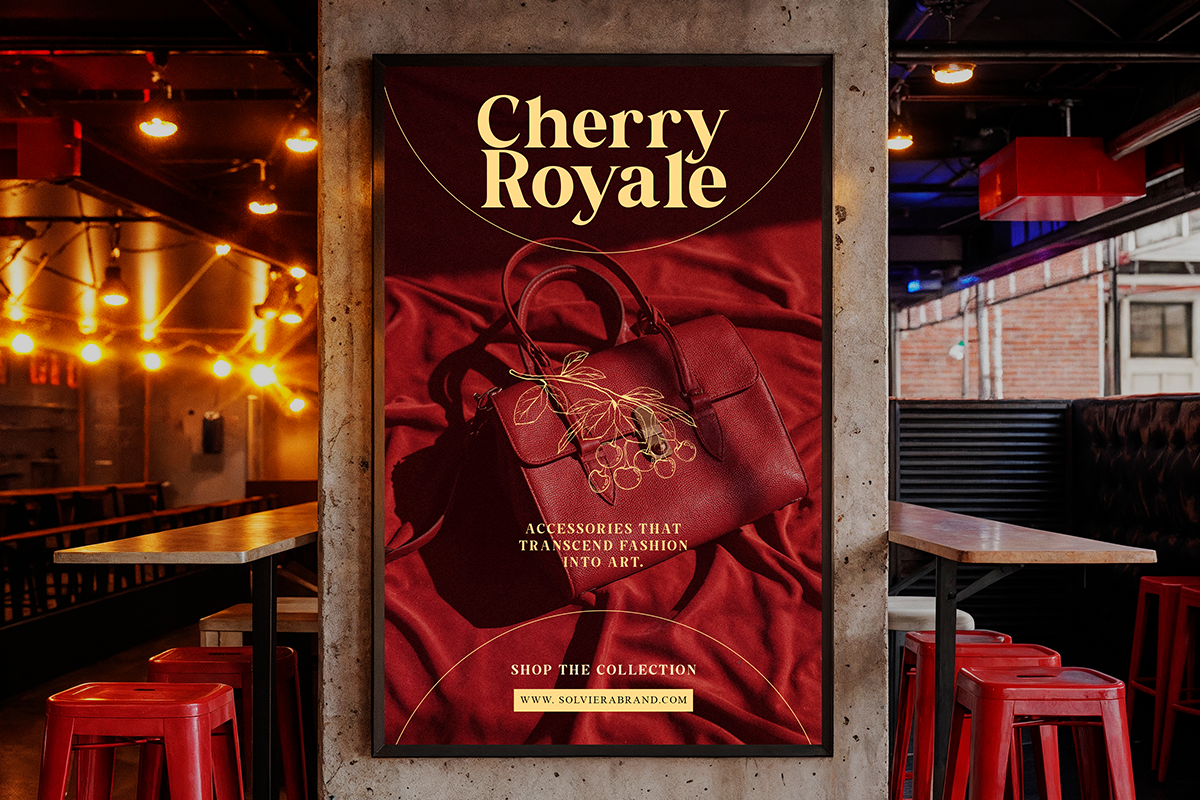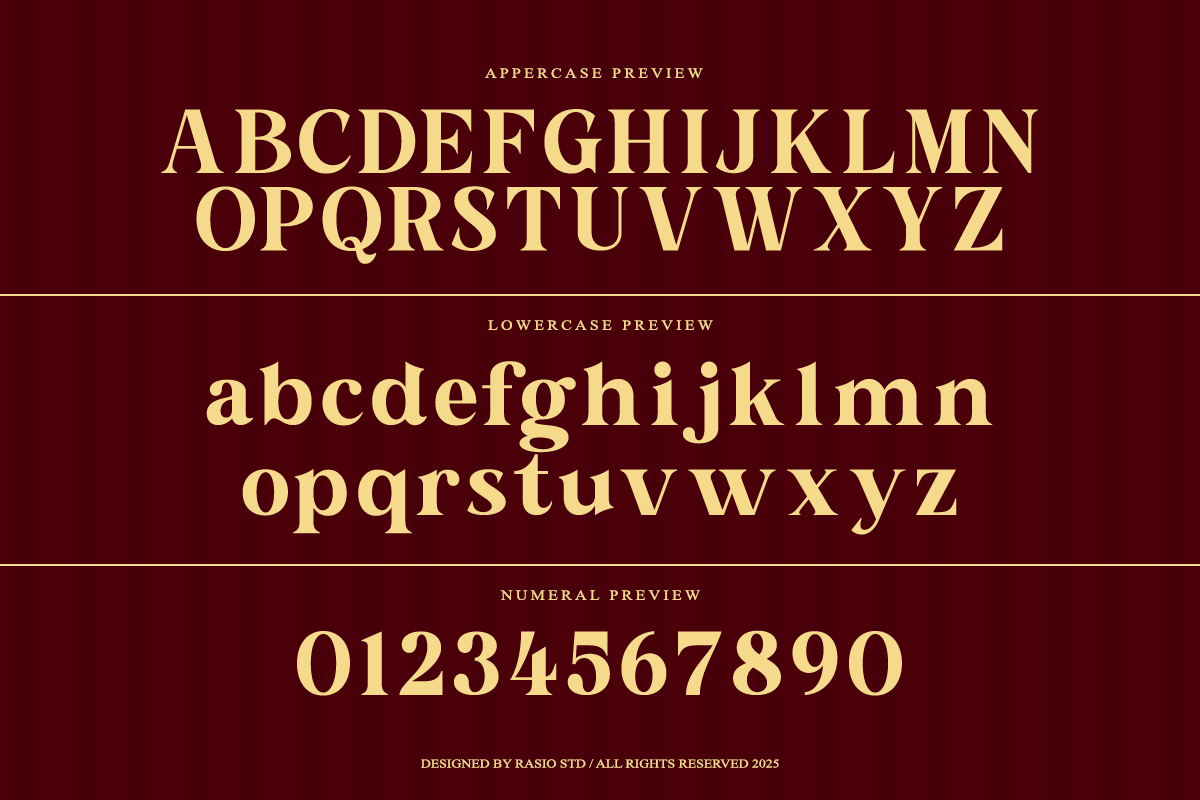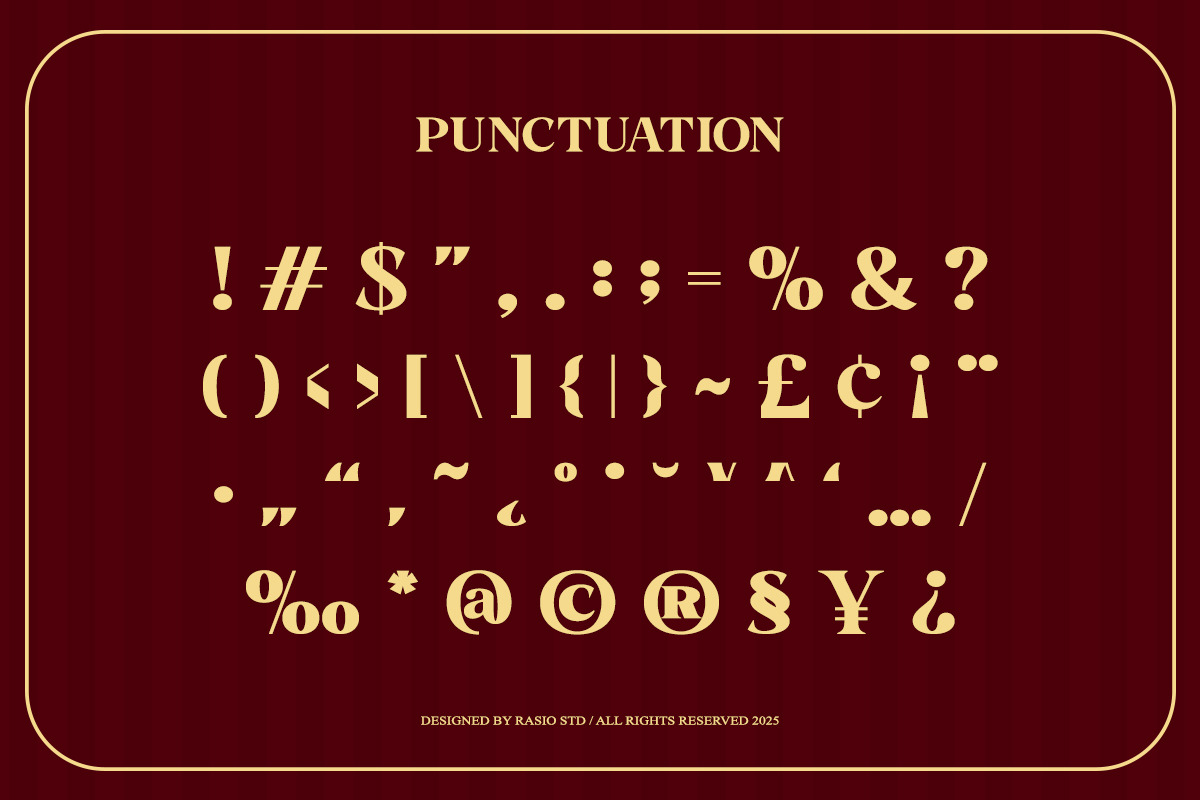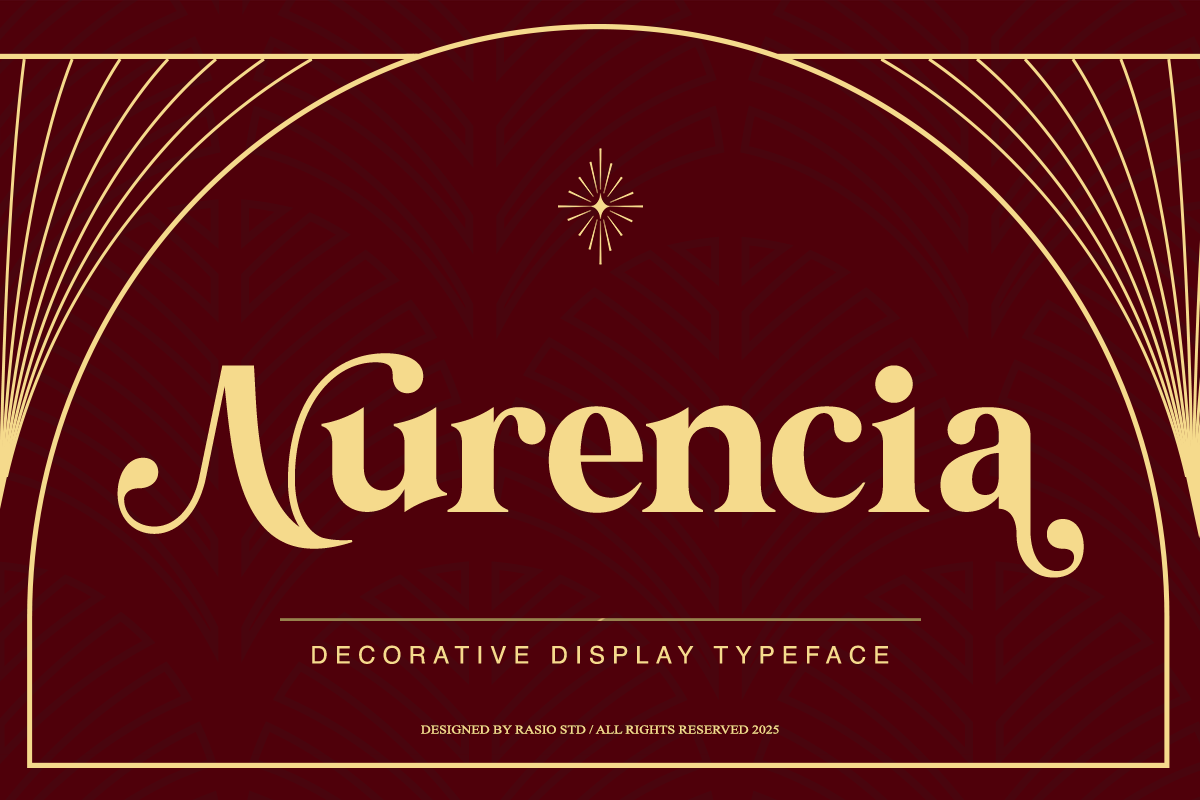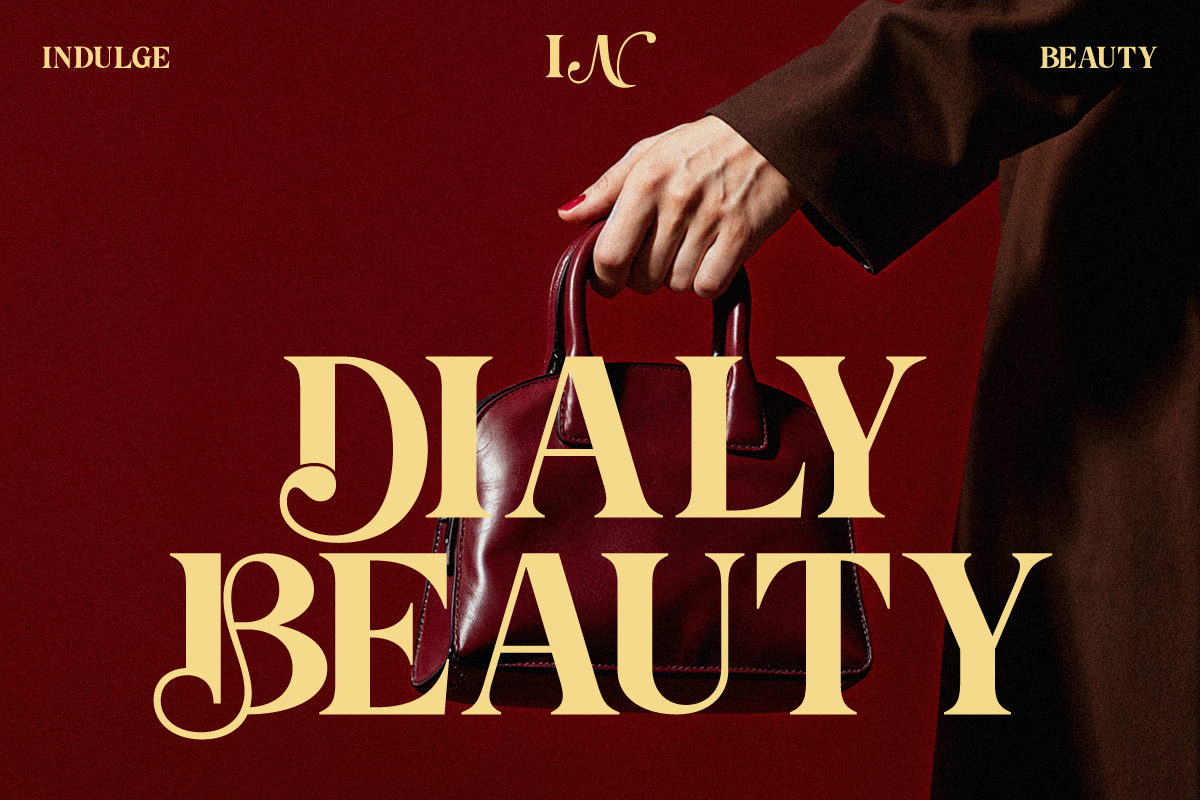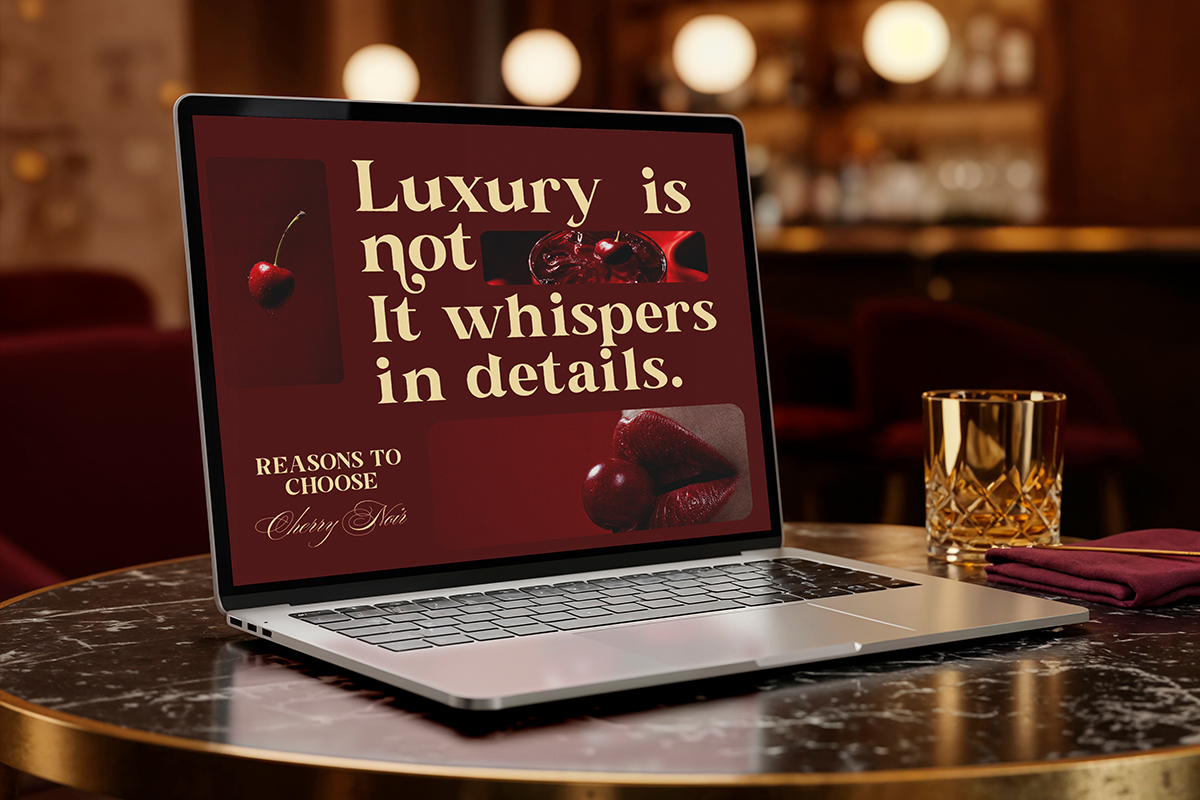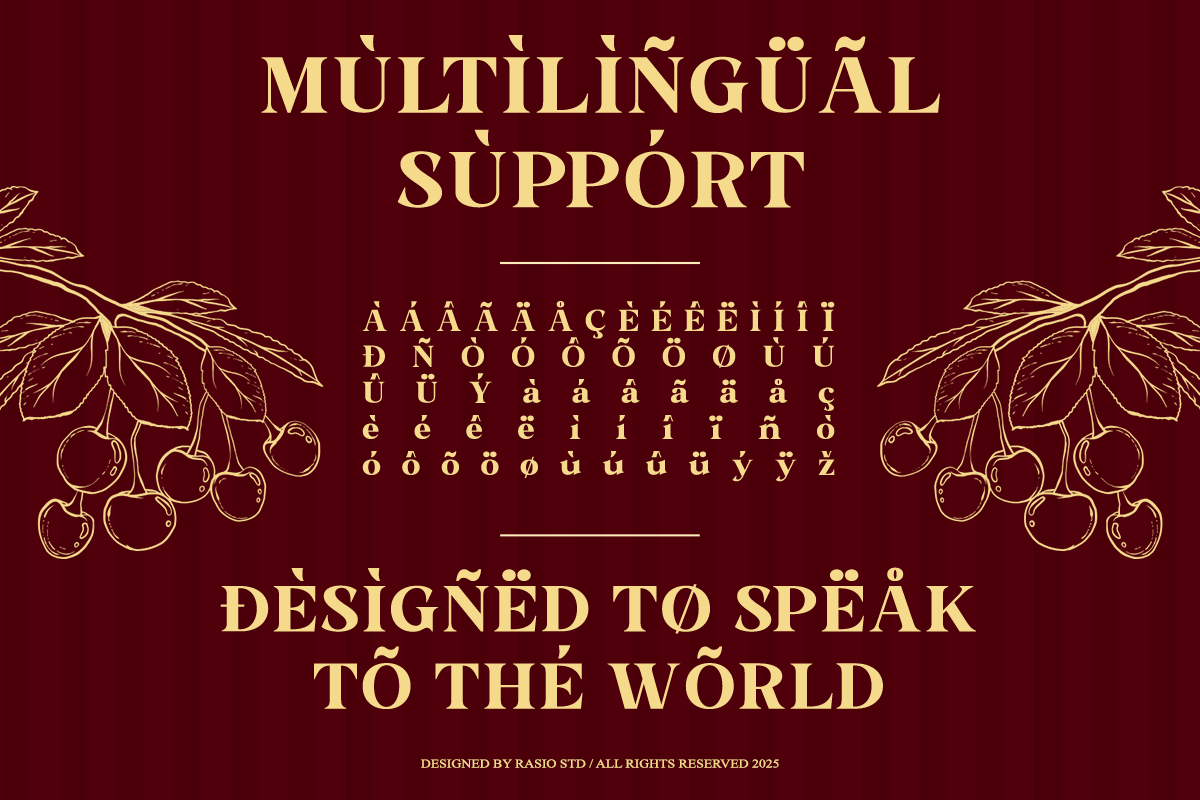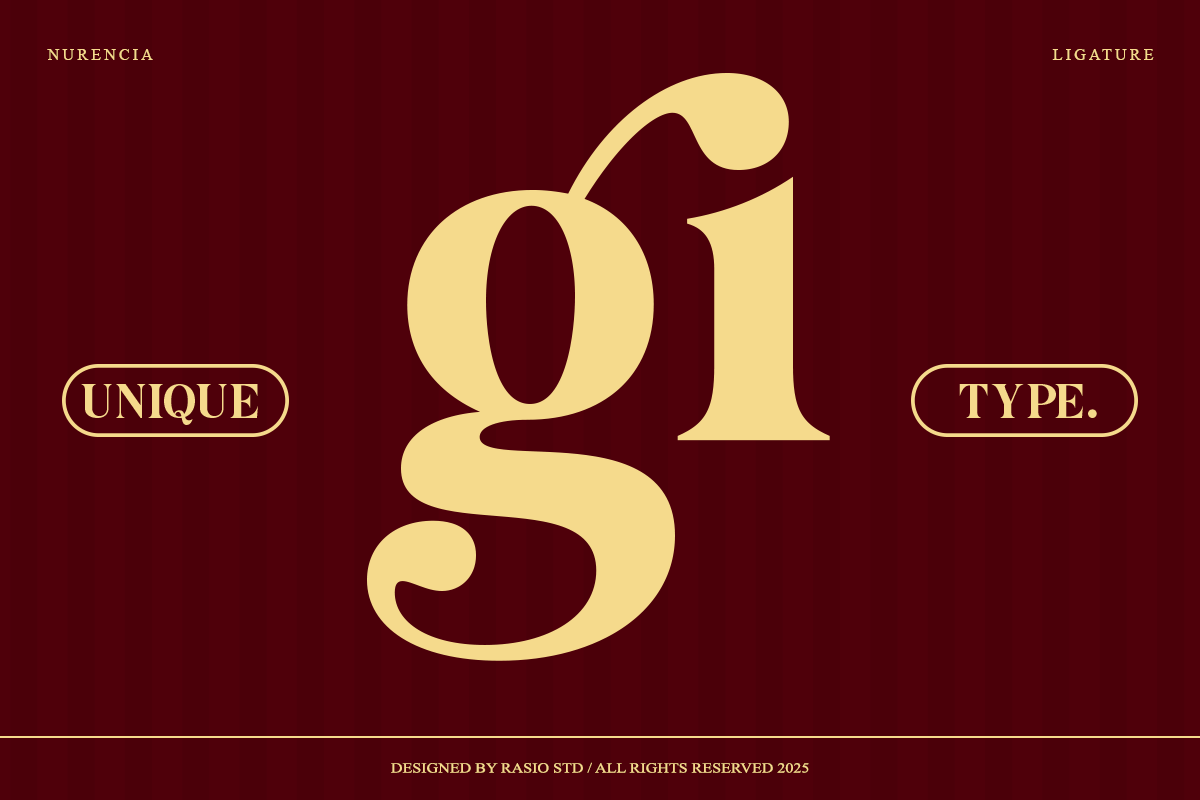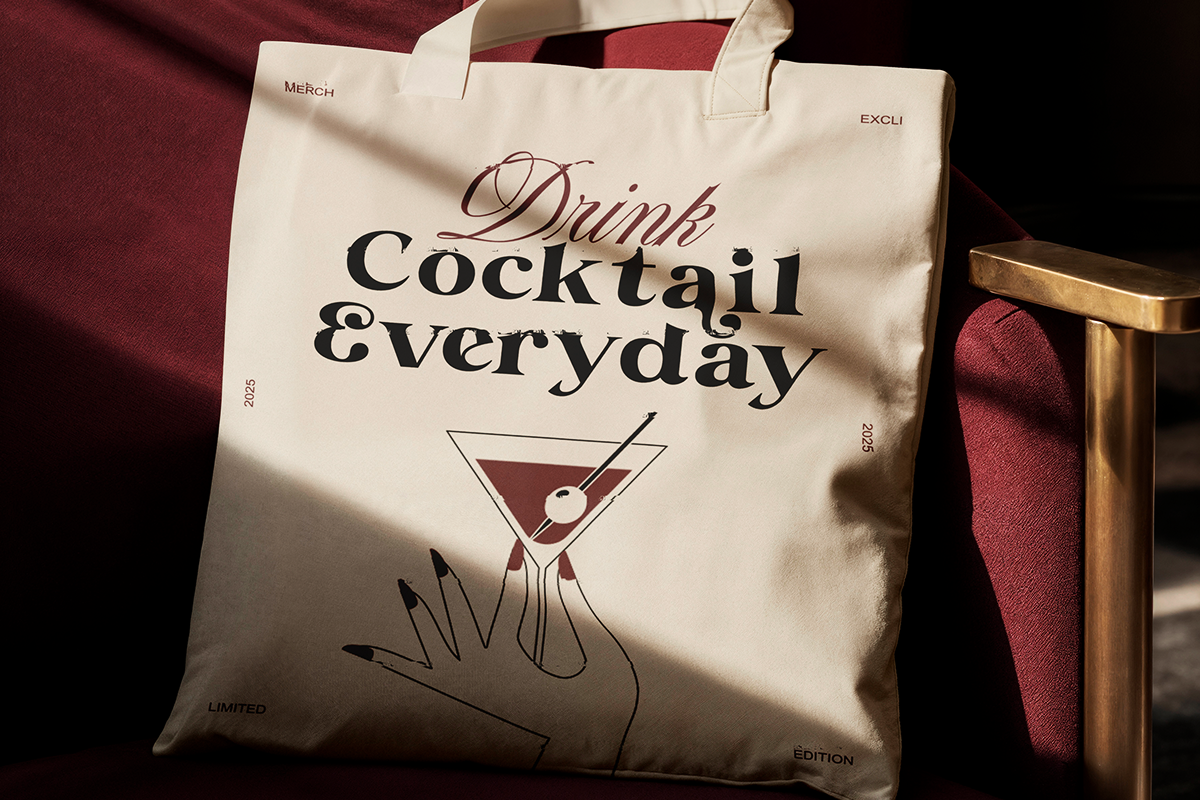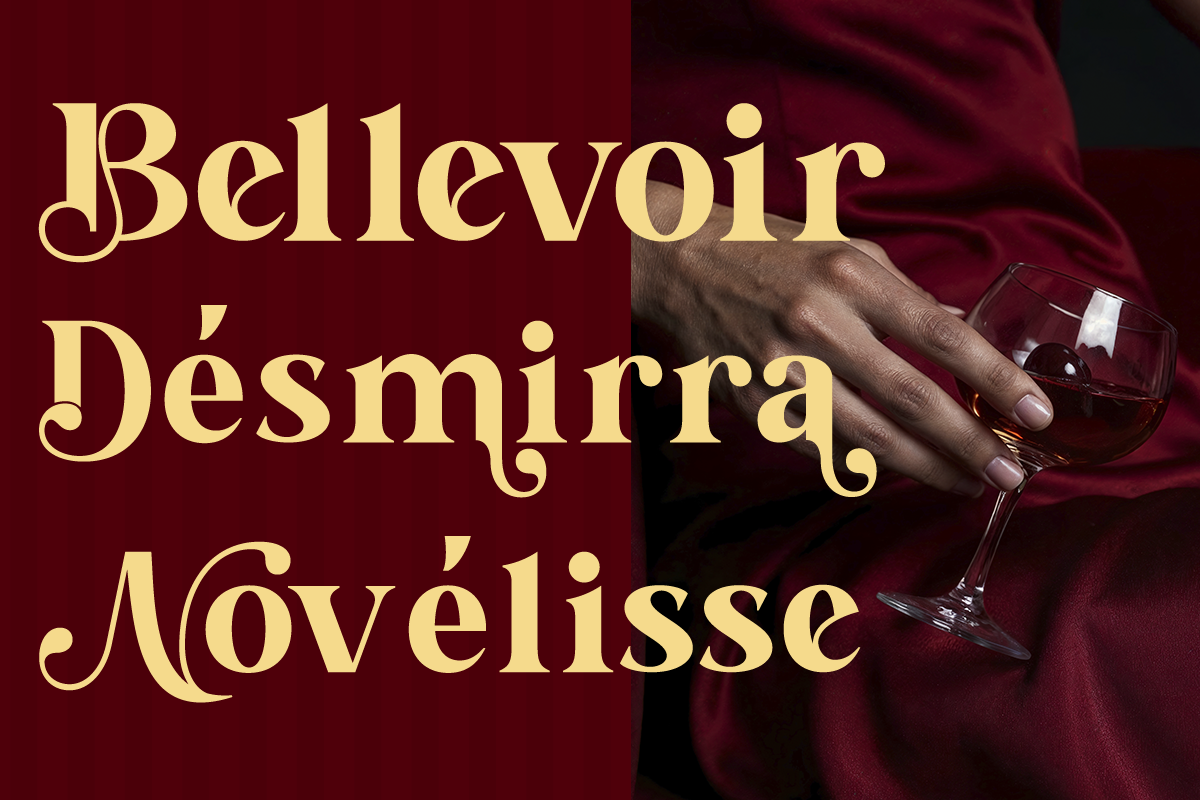
Nurencia Decorative Display Font
Nurencia is a decorative display serif typeface designed with elegant curves and refined classical proportions. The letterforms feature smooth high-contrast strokes, graceful terminals, and subtle ornamental details that create a luxurious and timeless typographic presence. Inspired by vintage editorial typography and sophisticated branding aesthetics, this font brings a refined and expressive character to any headline or display composition.
Nurencia is designed for projects that require elegance and visual sophistication. Its decorative serif structure works especially well for luxury branding, editorial headlines, packaging design, beauty and fashion branding, wedding stationery, upscale restaurant menus, perfume packaging, magazine titles, boutique logos, and premium marketing materials. The refined character shapes and balanced serif details make it highly effective for display typography that aims to communicate elegance, heritage, and timeless style.
- Elegant high-contrast serif structure that creates a refined and sophisticated visual
- Decorative serif details and graceful curves that enhance the font’s luxurious character
- Smooth flowing terminals and balanced proportions for visually pleasing display
- Classic serif influence inspired by vintage editorial and luxury branding aesthetics
- Carefully crafted spacing that maintains clarity and elegance
- Luxury brand identity and elegant logo design for premium businesses
- Editorial headlines for fashion magazines, lifestyle publications, and luxury catalogs
- Wedding invitations, event stationery, and romantic celebration designs
- High-end product packaging such as perfume, cosmetics, wine, and boutique goods
- Sophisticated marketing materials including posters, social media graphics
Add a touch of refined elegance to your typography with Nurencia